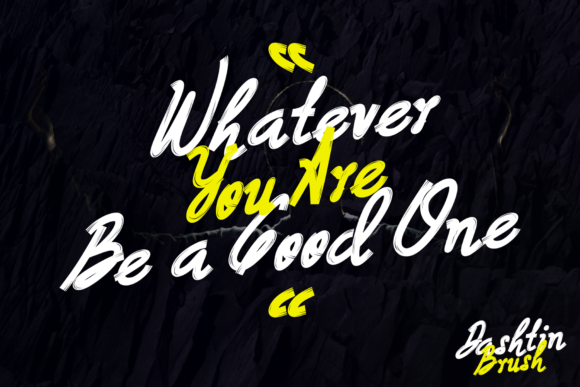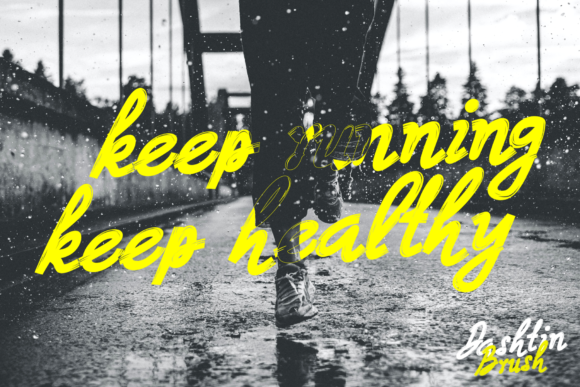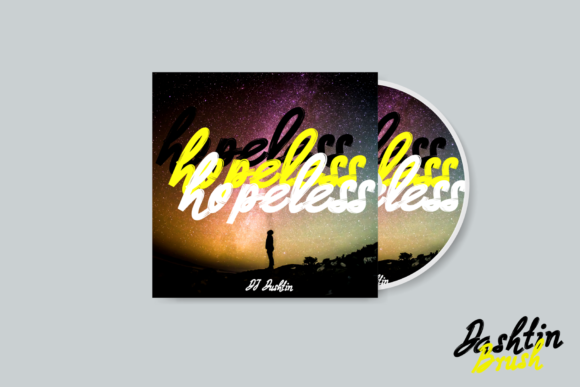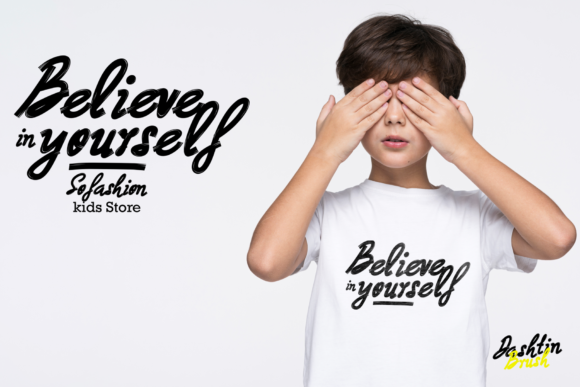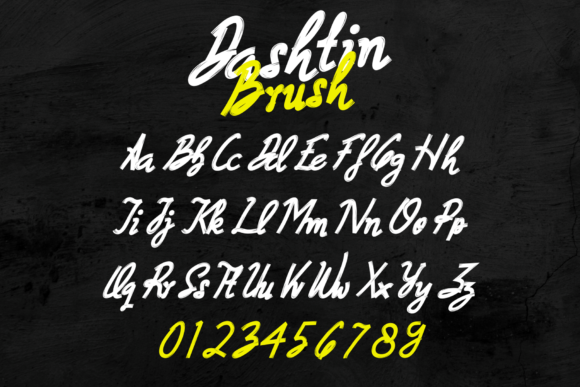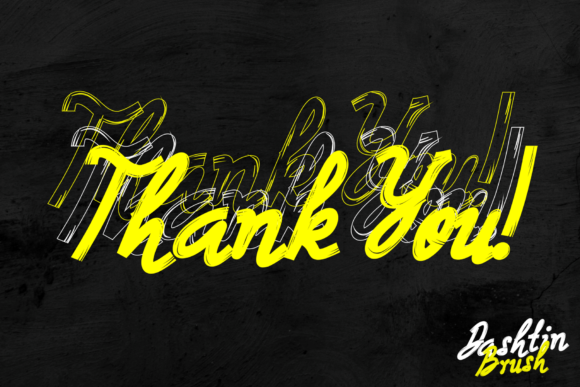
Unleashing Creativity with the Perfect Brush Font
Have you ever been in the midst of a creative project, staring at a blank page, trying to find the perfect font to bring your vision to life? The struggle is real, but what if I told you that the solution is just a few clicks away? Enter the Dashtin Brush Font, a game-changing display font that’s about to revolutionize the way you design.
This stunning font boasts a simple yet effective brush texture that’s perfect for a wide range of projects, from business branding to Instagram quotes, blog headers, and more. Whether you’re a seasoned designer or just starting out, the Dashtin Brush Font is an invaluable asset to have in your toolkit. Its versatility and unique charm make it a valuable addition to any design arsenal.
Dashtin Brush Font Key Features
- Font Family: Dashtin Brush
- Font Styles: Regular, Italic, Bold, Bold Italic
- Character Set: Latin, Cyrillic, Greek
- Unique Characteristics: Hand-drawn design, brush script style, high-resolution images (up to 300 DPI)
Dashtin Brush Font Review
As a designer, I’ve had the chance to work with the Dashtin Brush Font, and I must say it’s a unique and interesting choice. Here are some of my thoughts on what works well and what doesn’t.
The font’s brush-like strokes add a nice organic feel to text, making it perfect for creative projects like watercolor illustrations or hand-drawn typography.
The font comes in a range of weights, from light to bold, giving you flexibility in terms of design and layout.
The font is highly customizable, with options for adjusting the stroke width, texture, and even the brush direction.
The font’s rough, brush-like texture can be overwhelming in large blocks of text, making it difficult to read.
The font may not be suitable for formal or professional projects, as it has a more casual, playful feel.
The customization options can be overwhelming, making it difficult to achieve the desired look without extensive experimentation.
The Dashtin Brush Font is a great choice for designers looking to add a touch of creativity and whimsy to their projects. While it may not be suitable for all design applications, it’s a great option for those looking to add a unique, hand-drawn feel to their work.
Tips for Getting the Most Out of Dashtin Brush Font
Use the Dashtin Brush Font for creating a rustic, handwritten feel in your designs.
Pair it with other brush fonts or bold fonts to create a visually appealing contrast.
Experiment with different font sizes and styles to achieve the desired effect.
Branding and marketing materials
Photography captions and quotes
Alternatives to Dashtin Brush Font
The Great Vibes Font is a beautiful, handwritten font that’s perfect for adding a touch of elegance to your designs. It’s ideal for use in invitations, quotes, and other creative projects where you want to convey a sense of sophistication and style.
Great Vibes Font has a more refined and polished look compared to Dashtin Brush Font, which makes it a great choice for formal or upscale designs. While Dashtin Brush Font has a more casual, hand-drawn feel, Great Vibes Font is more precise and uniform in its lettering.
Carolyna Pro is a modern, handwritten font that’s designed for use in a wide range of applications, from logos and branding to advertising and editorial design. It’s a great choice for designers who want to add a touch of personality and whimsy to their work.
Carolyna Pro has a more dynamic and expressive feel compared to Dashtin Brush Font, which makes it a great choice for designs that require a lot of energy and movement. While Dashtin Brush Font has a more subtle, understated look, Carolyna Pro is more dramatic and attention-grabbing.
The Alex Brush Font is a elegant, handwritten font that’s perfect for use in high-end designs, such as luxury branding, advertising, and editorial work. It’s a great choice for designers who want to add a touch of sophistication and refinement to their work.